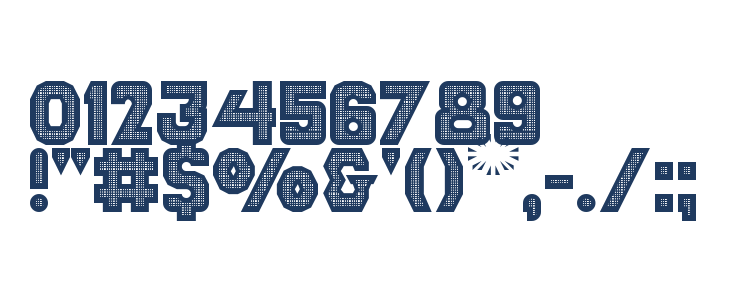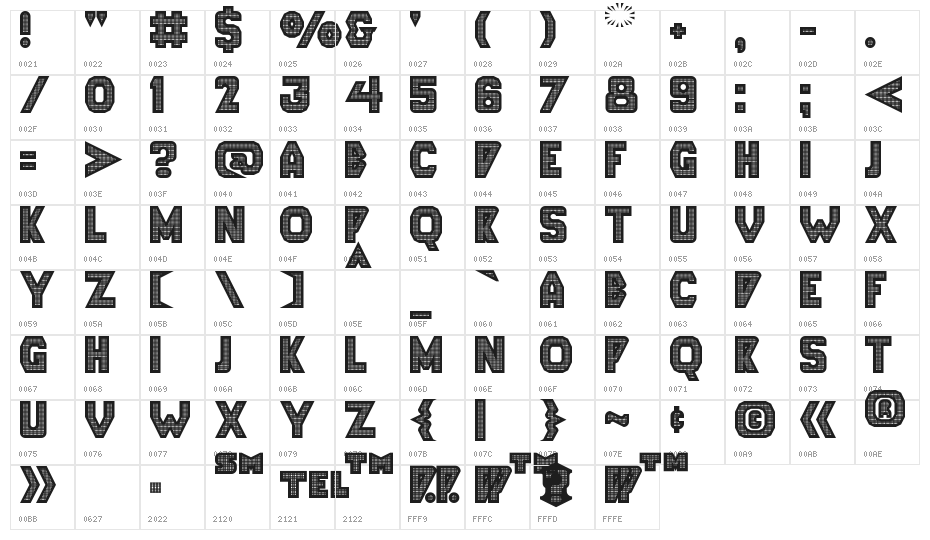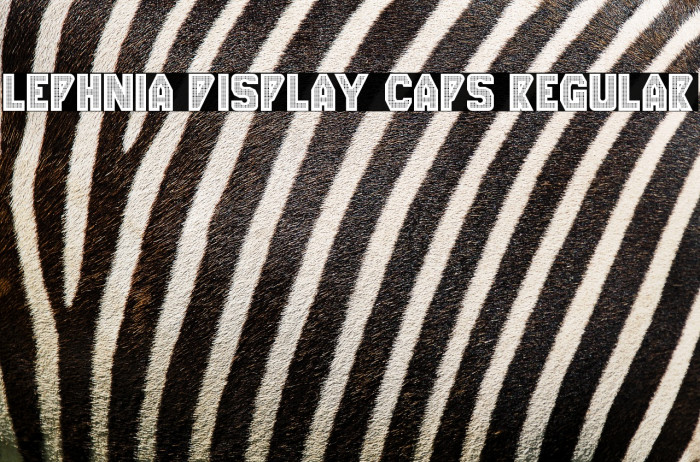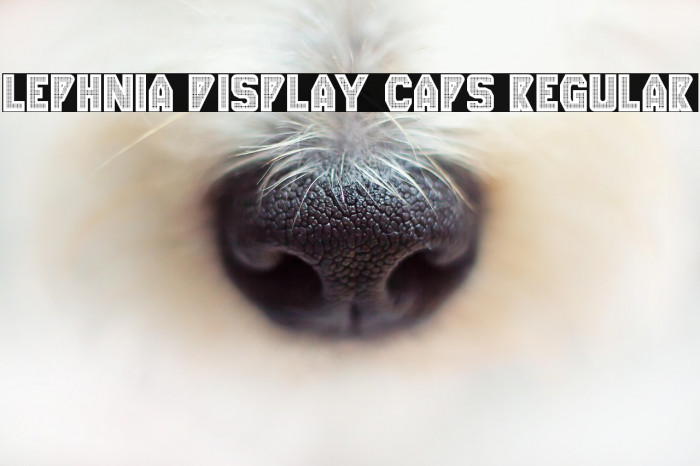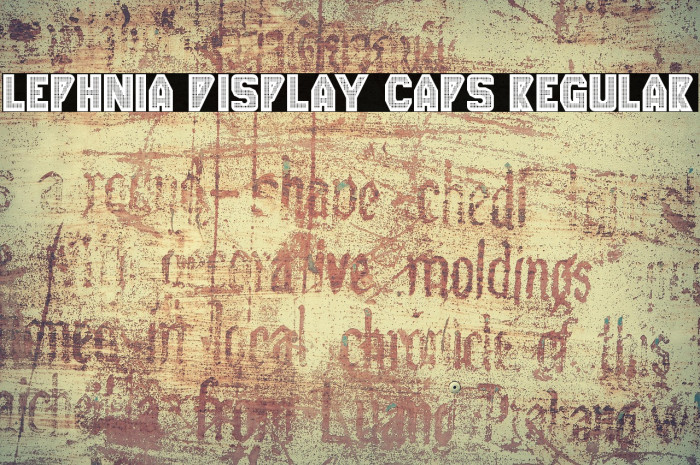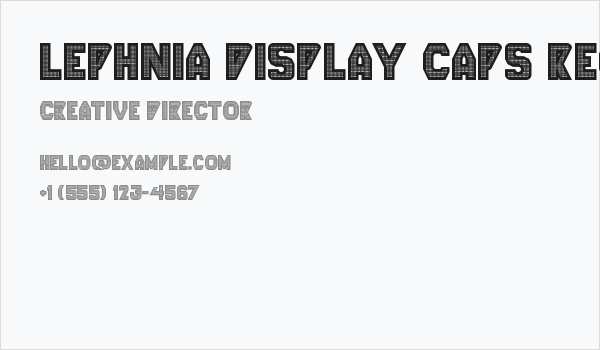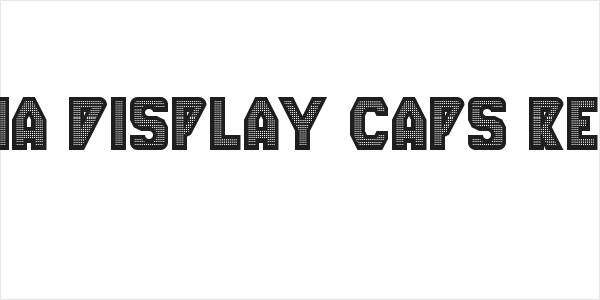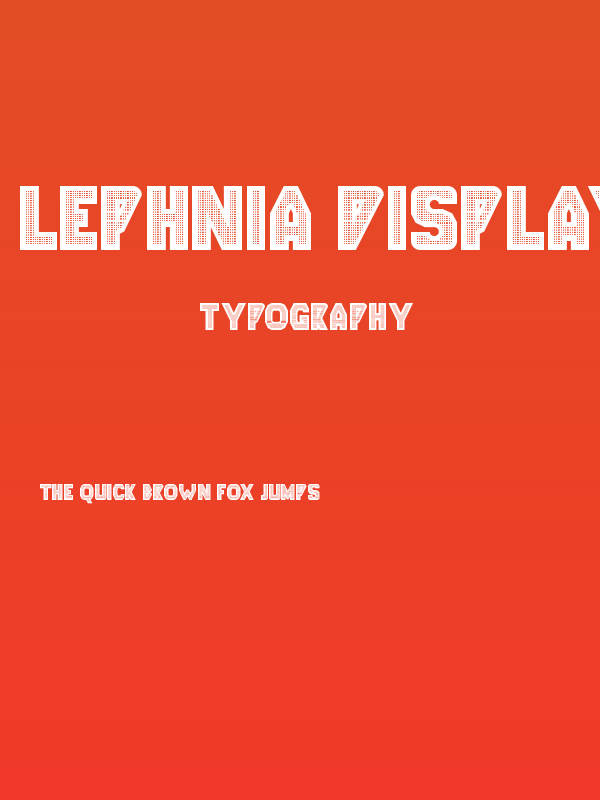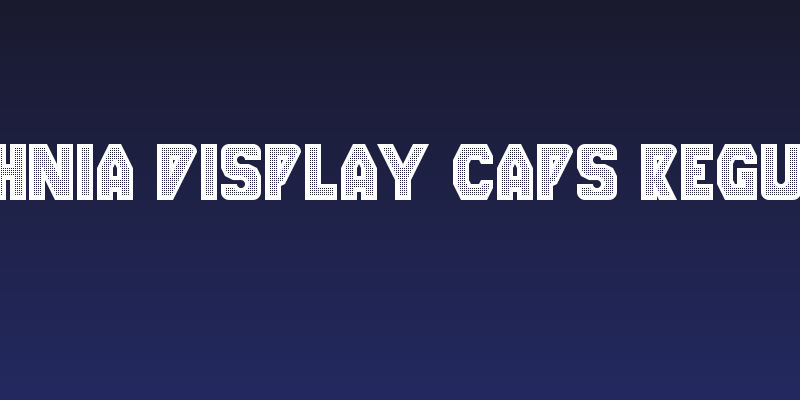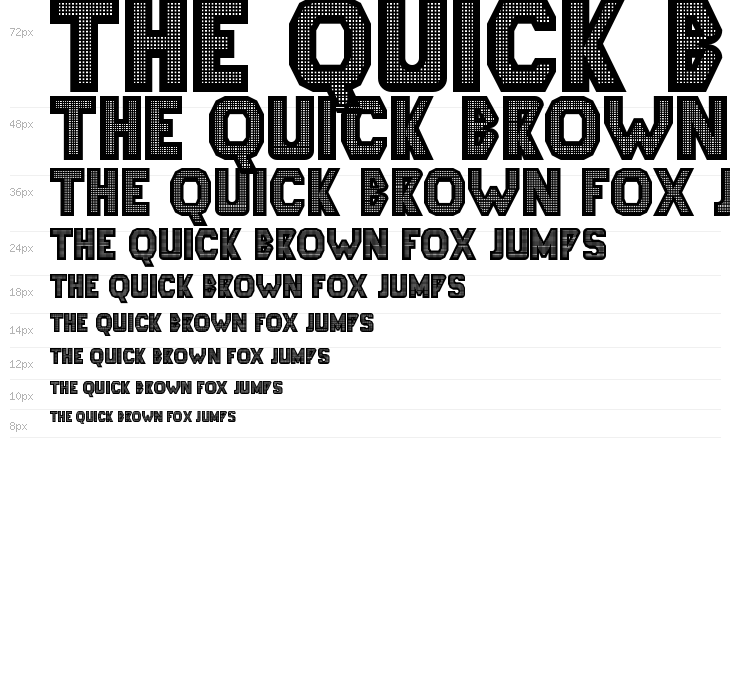
Lephnia Display Caps Regular Font
Lephnia Display Caps Regular Description
This font features a bold and striking design with a unique pattern of small dots filling each character, creating a textured and eye-catching appearance. The uppercase letters are crafted with sharp, angular lines, giving them a modern and futuristic feel. The numbers and special characters maintain this consistent style, ensuring a cohesive look across all elements. The font's geometric structure and decorative detailing make it ideal for projects that require a strong visual impact.